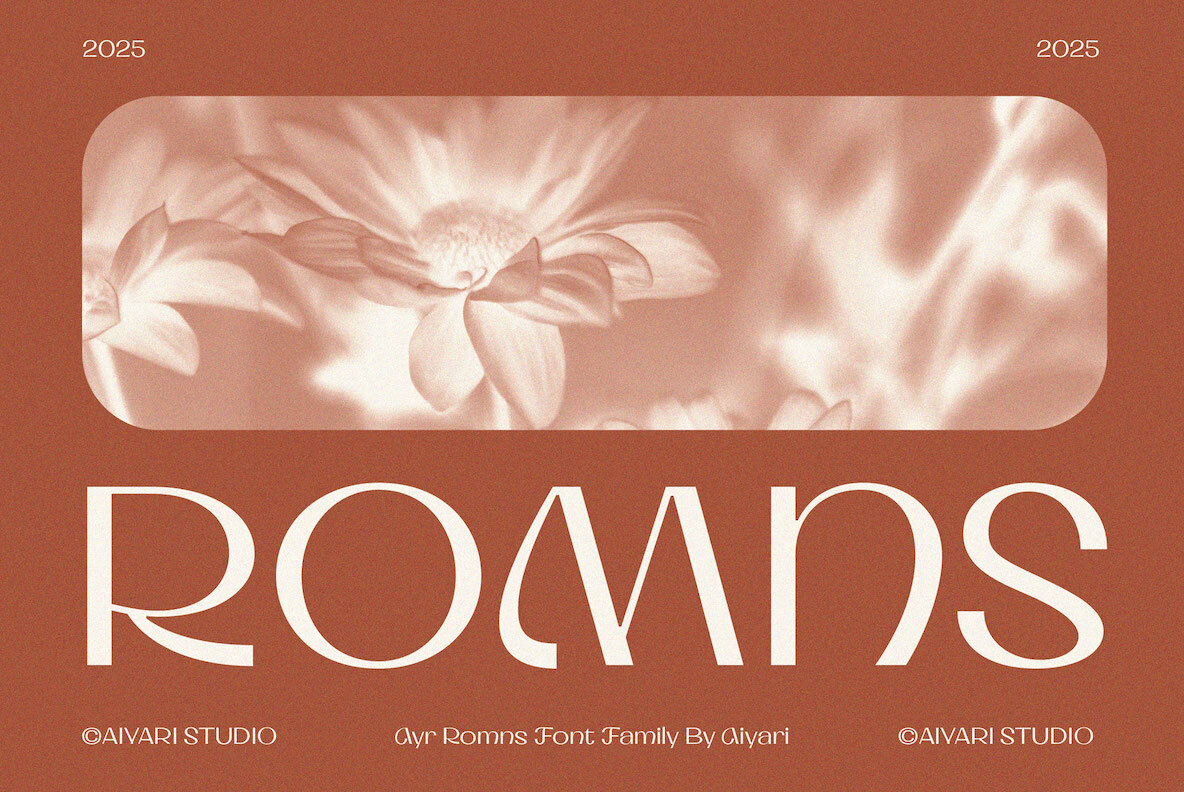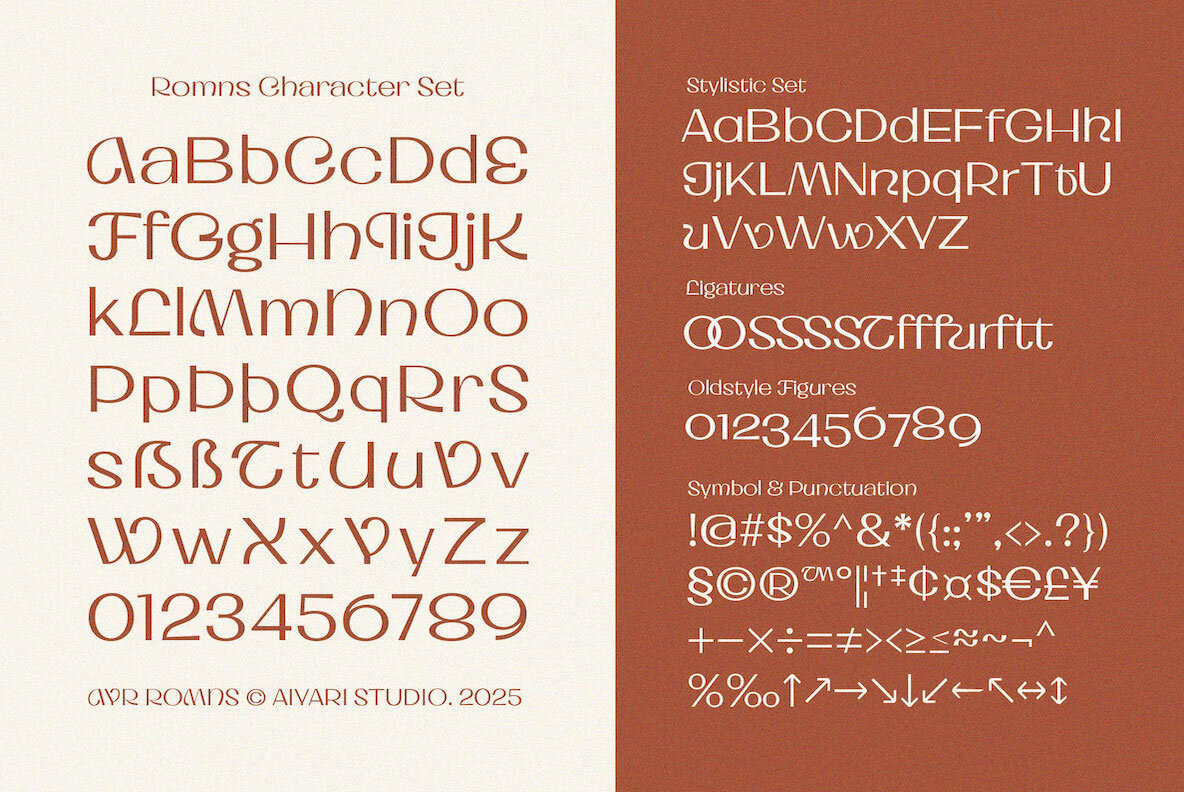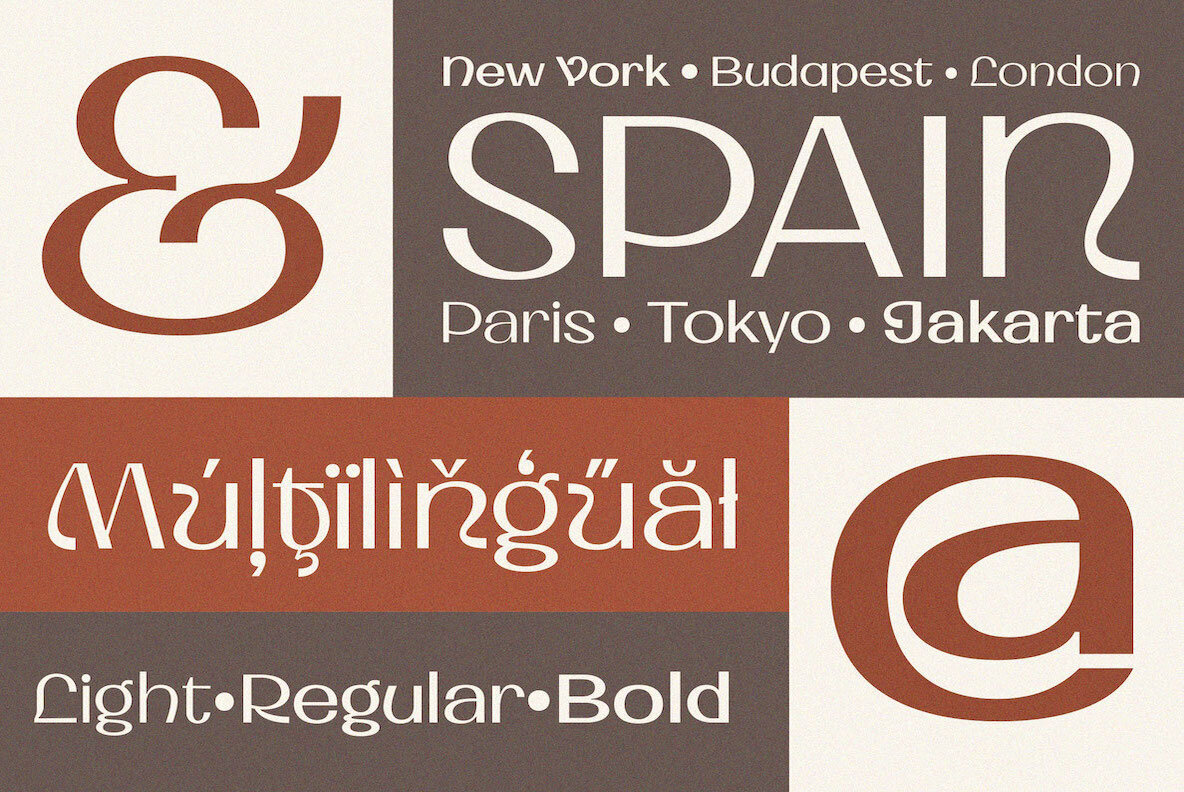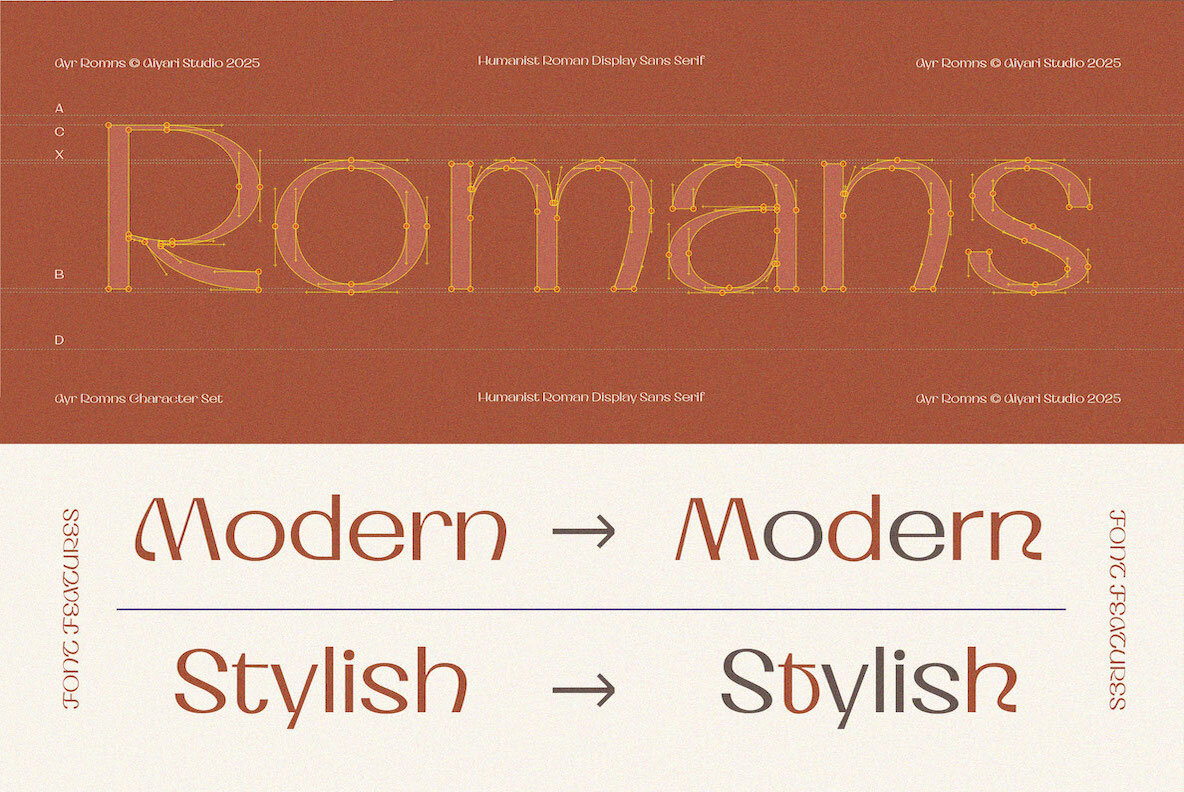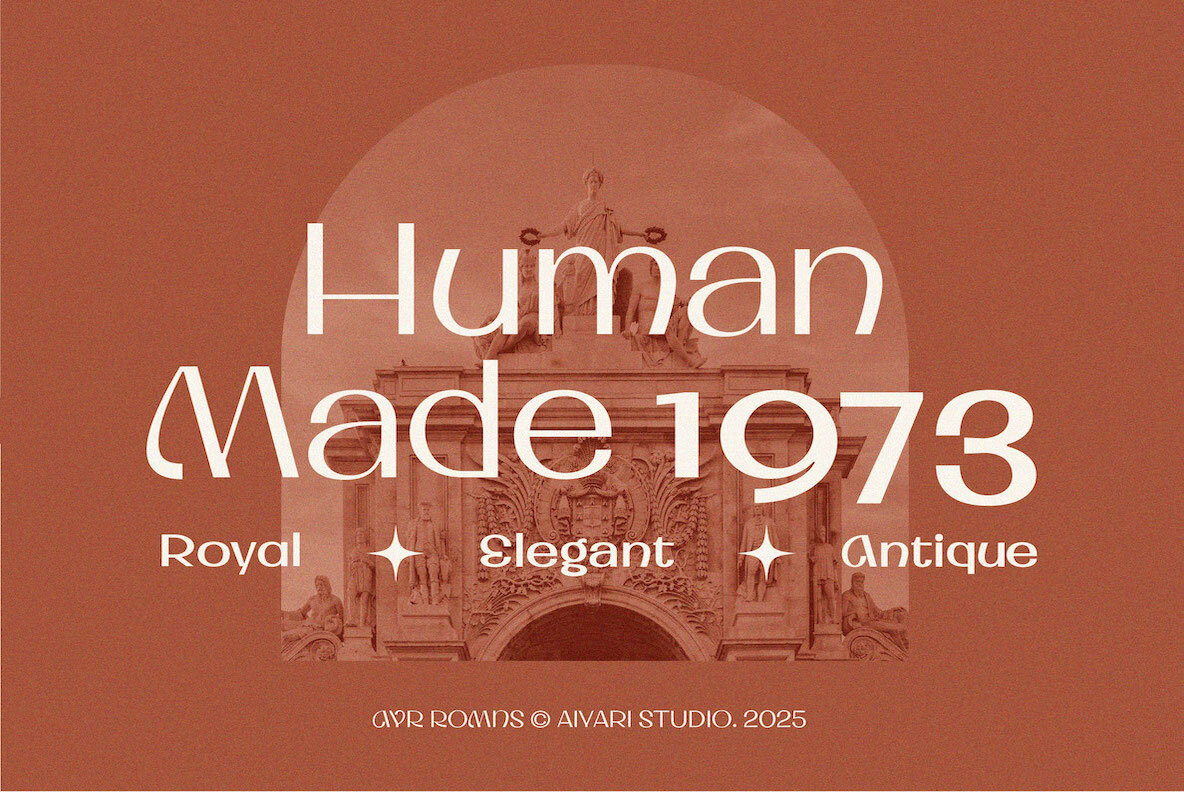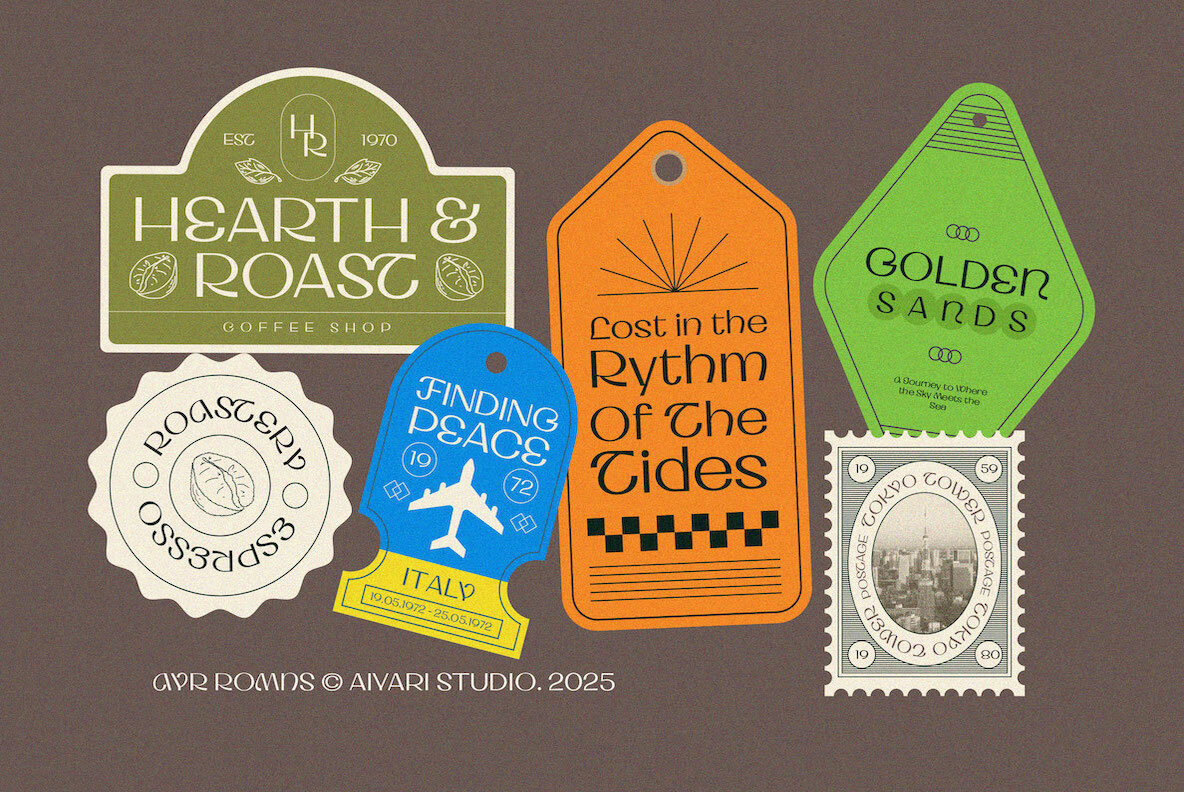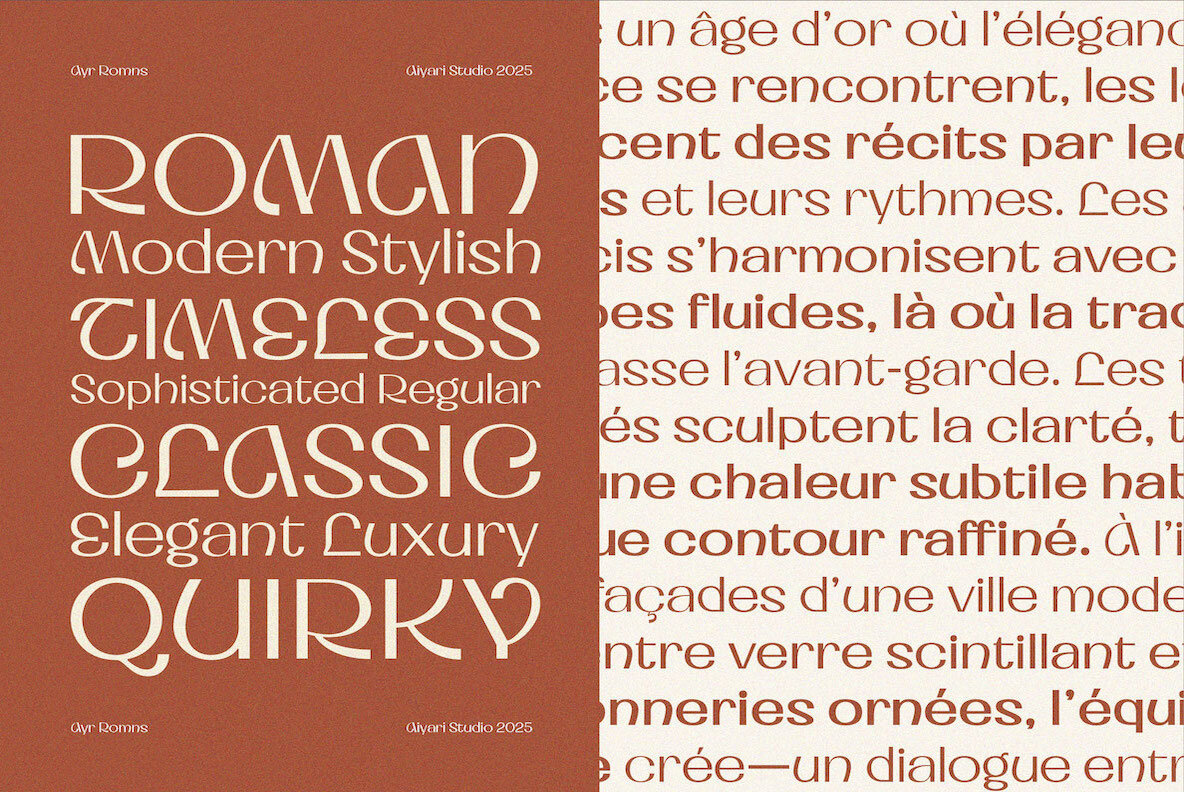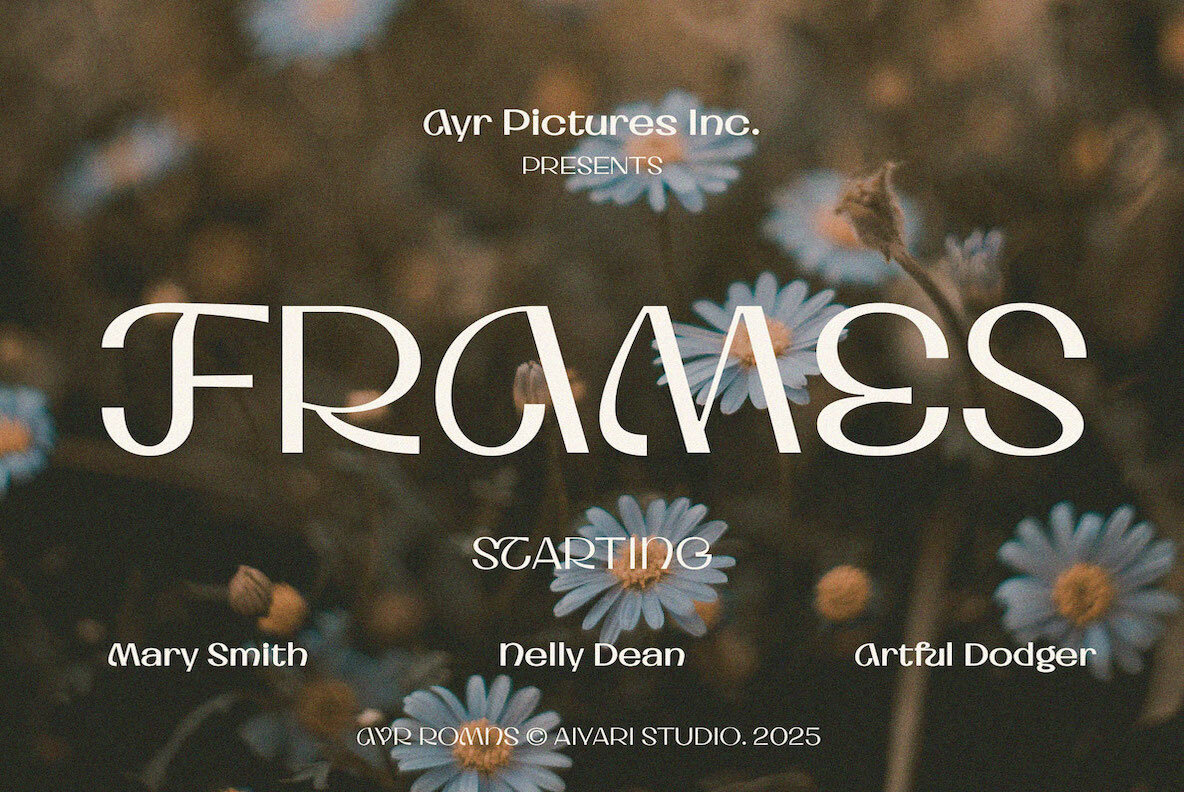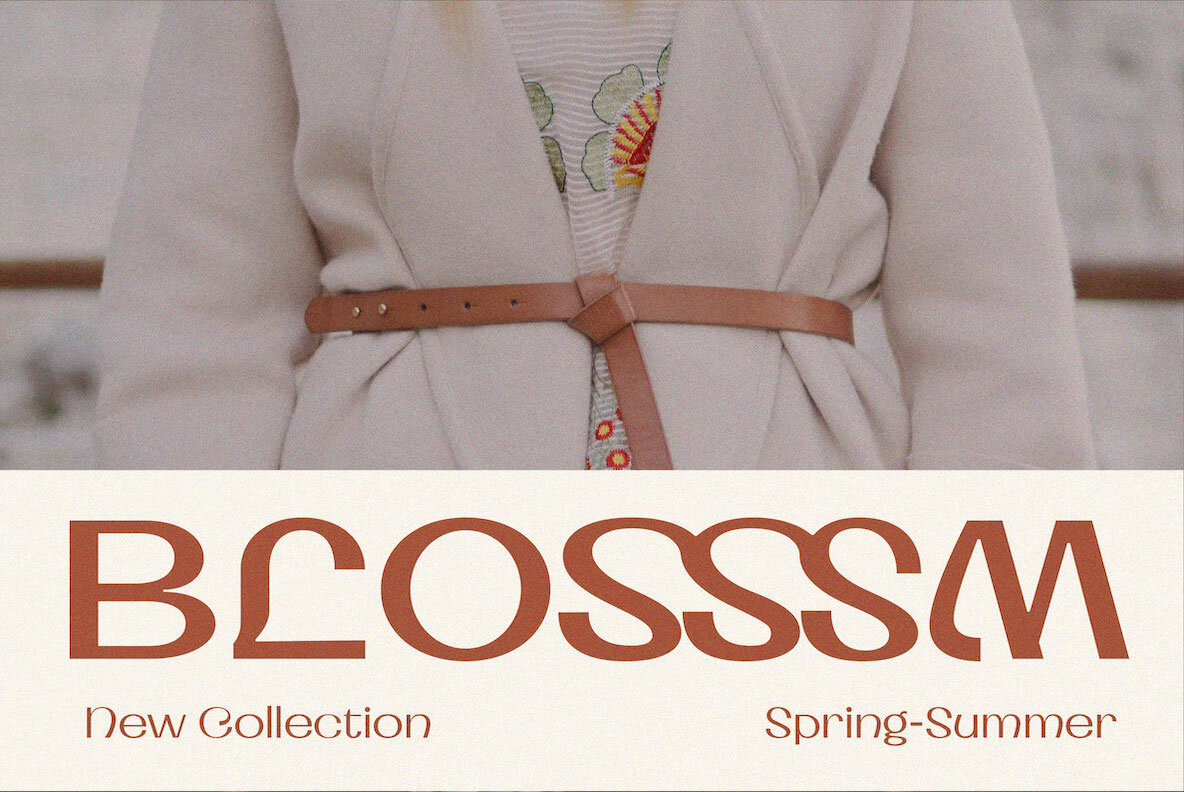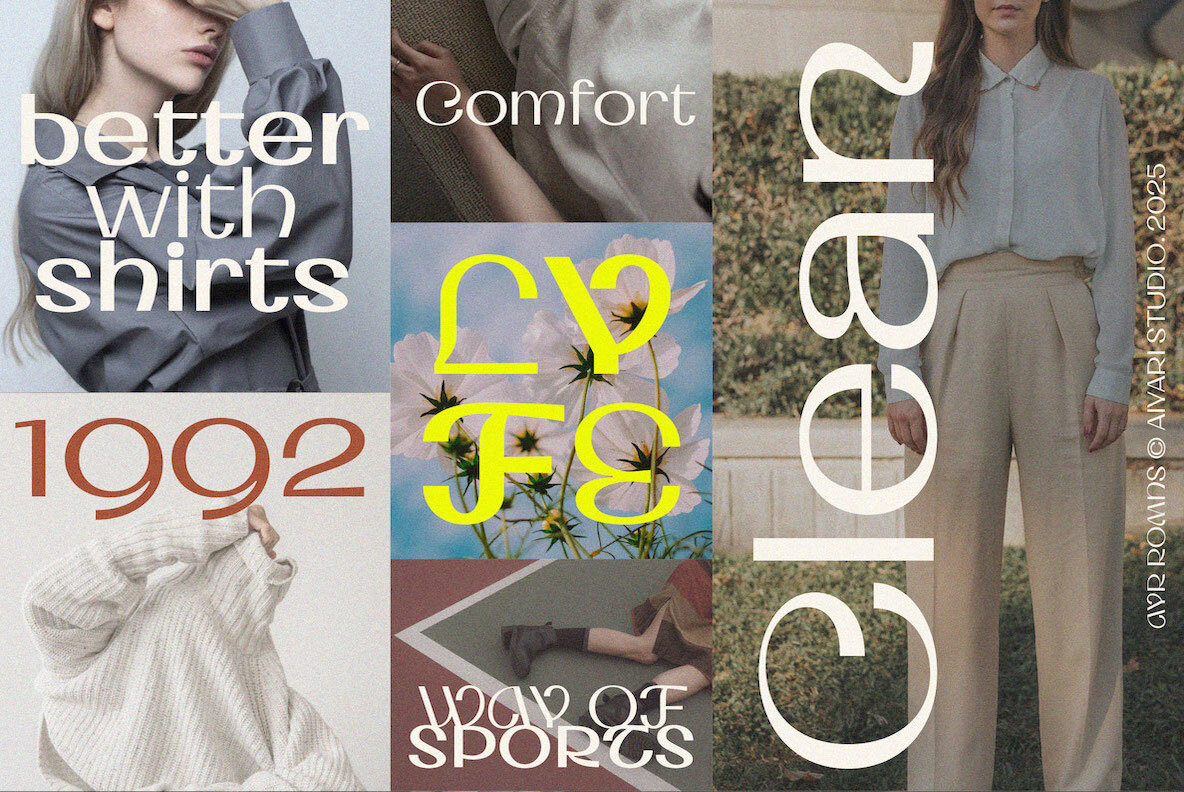
Romns is a display typeface that captures the elegance of Roman letterforms, while drawing on the rich influences of Art Deco, Art Nouveau, modernism, and humanist sans-serif aesthetics. Its distinctive shapes and refined details offer a nostalgic feel paired with a contemporary look, creating a unique balance of timelessness and modern appeal.
The typeface is ideal for a variety of design applications, including logotypes, posters, packaging, and book covers, as well as other creative projects looking for a unique character. Romns provides any design with a sophisticated and aesthetic touch, making it a versatile choice for designers aiming to blend classic and modern elements in their work.